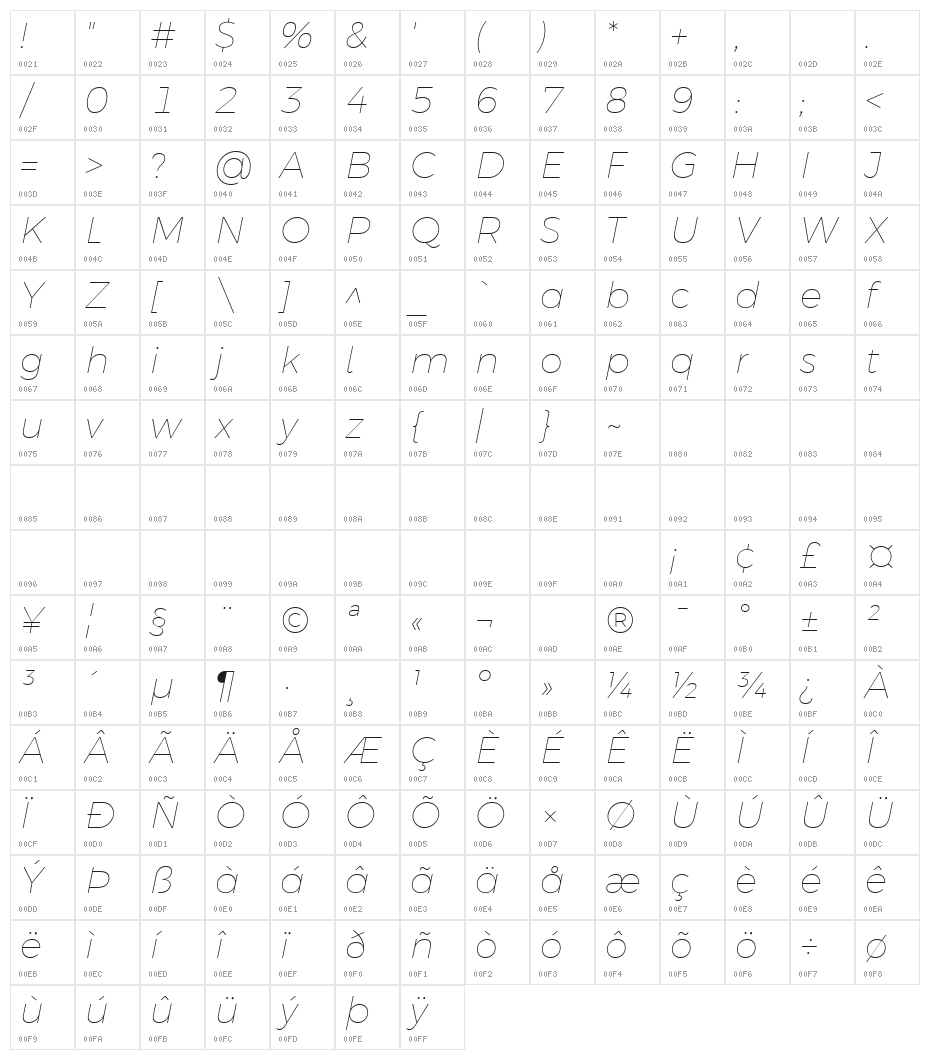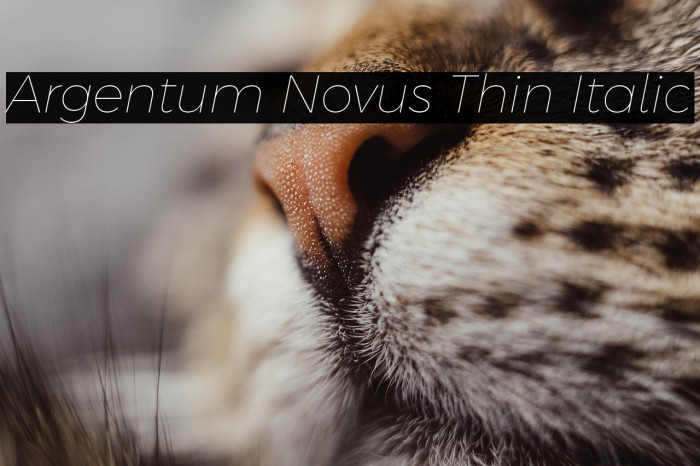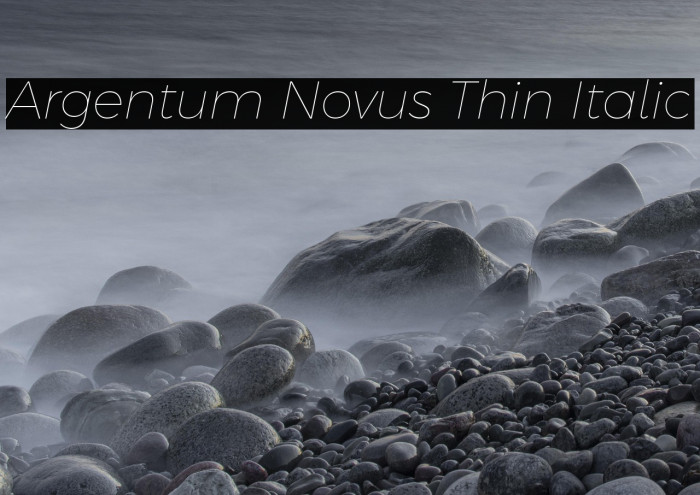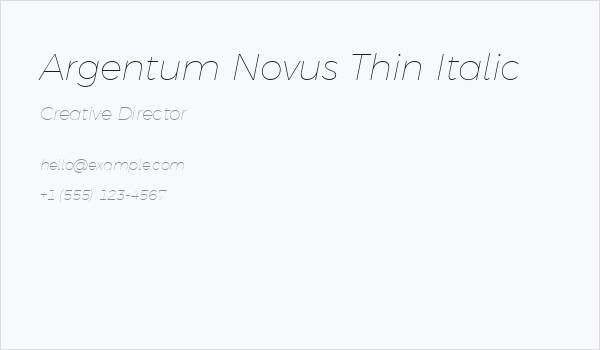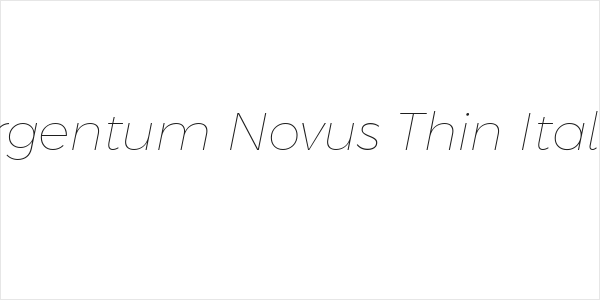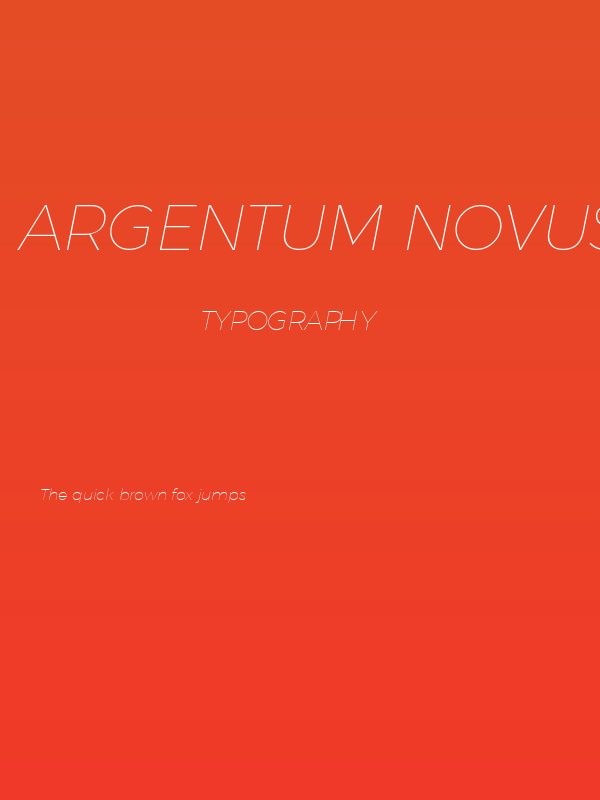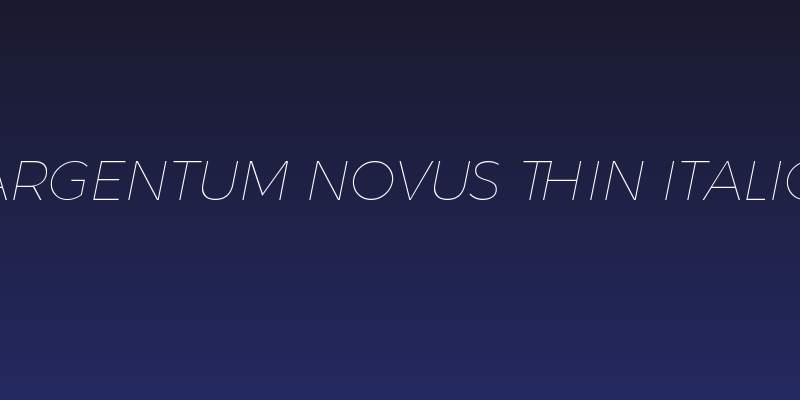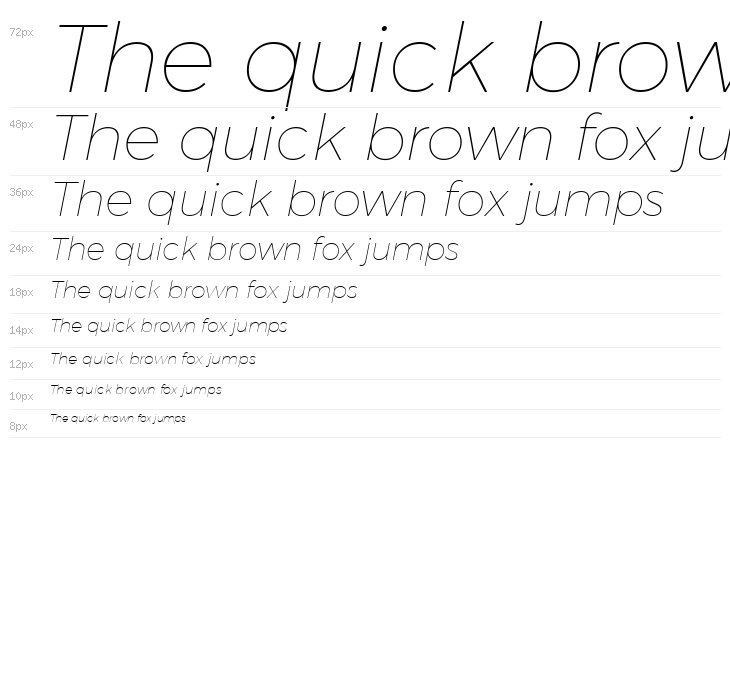
Argentum Novus Thin Italic Font
Argentum Novus Thin Italic Description
This font features a sleek and modern design with a thin, elegant structure. The characters are slightly slanted, giving it an italicized appearance that adds a sense of motion and fluidity. The strokes are consistent in their thinness, contributing to a clean and minimalist aesthetic. The uppercase and lowercase letters maintain a uniform style, with rounded edges and smooth curves. The numerals and special characters are designed to match the overall style, ensuring a cohesive look across all text elements. This font is ideal for projects that require a contemporary and sophisticated touch.
| Proposed Projects | Ideal for branding, editorial design, fashion magazines, and modern web design. |